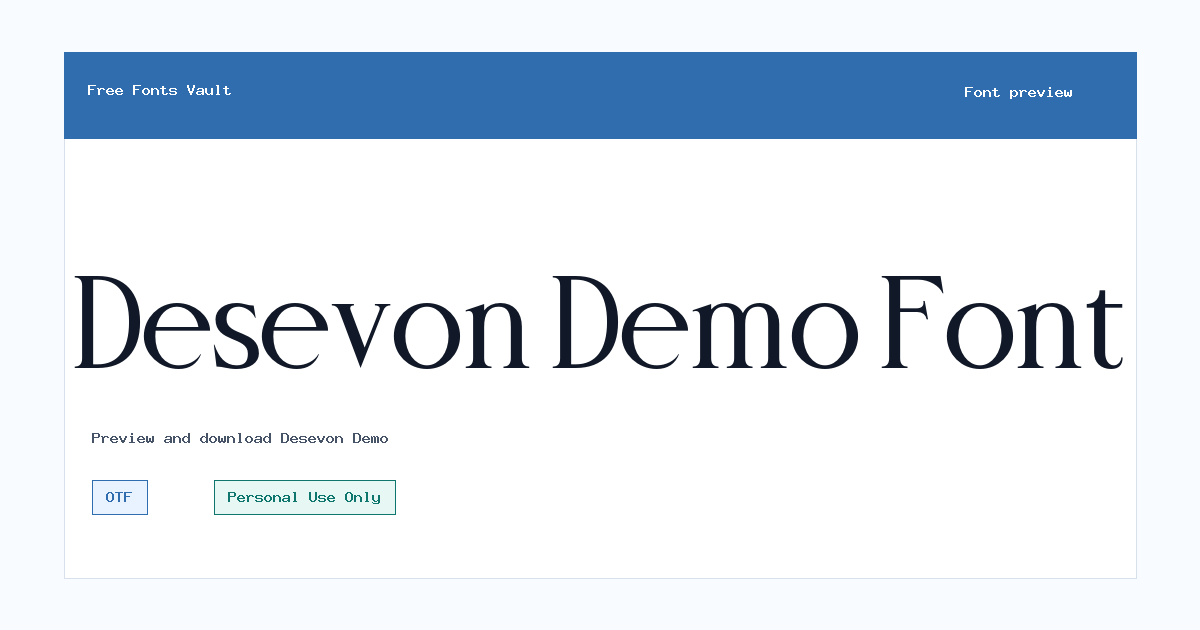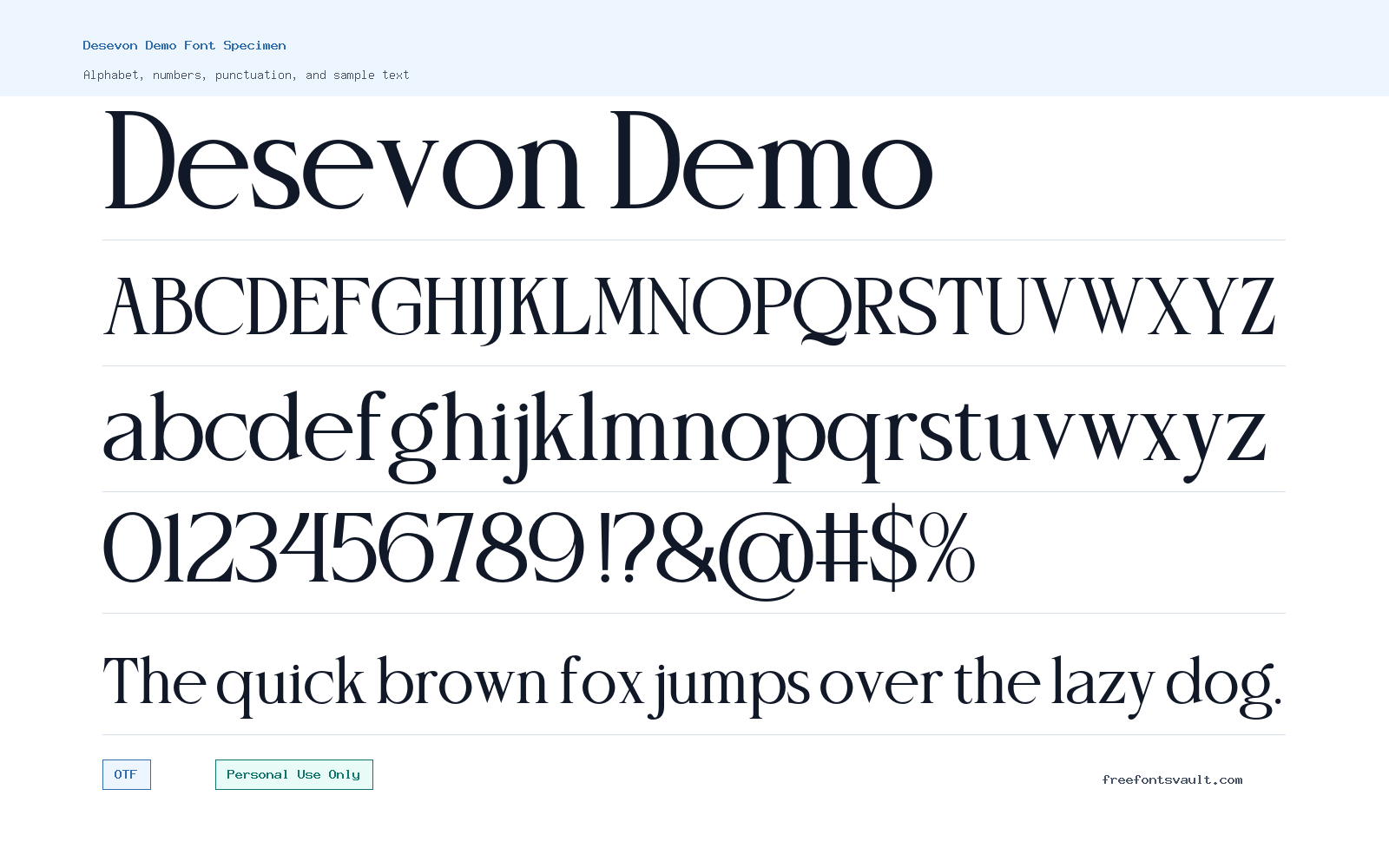
Desevon Demo
Desevon Demo is a serif display font for testing refined title treatments, elegant mockups, and short decorative text. The demo download is marked Personal Use Only, so it is best treated as a trial font for private design exploration rather than client, brand, product, or website use.
Desevon Demo is the trial version of Desevon, a serif typeface from Burntilldead Studio. The full Desevon product is presented by the studio as an elegant serif with high-contrast strokes, graceful curves, ligatures, alternates, and swash details. In practical terms, that points toward a display-first font: it is more useful for names, headlines, invitations, packaging concepts, editorial mastheads, and logo sketches than for long paragraphs. The demo file on this page is a Regular OTF font, so it gives you a direct way to test the core look before deciding whether a paid license or full family is needed.
Use Desevon Demo in the preview tool with real words from your project, not only sample alphabet text. Try a brand name, a wedding couple name, a magazine-style title, or a short product label and check how the capitals, spacing, and thinner strokes behave at different sizes. Serif display fonts with decorative contrast can look polished in large settings but may lose clarity when reduced too far, especially on mobile screens or small labels. For web mockups, test it as a hero heading or image-based concept rather than body copy. For logo work, keep it limited to private concept testing unless you have the correct commercial and logo rights.
- Serif display character with an elegant, high-contrast look
- Best suited to short text, names, titles, and visual mockups
- The studio describes the full version as including alternates, ligatures, multilingual support, and OpenType-oriented features
- Private logo concepts and brand-name studies
- Wedding invitation drafts and elegant name layouts
- Fashion, beauty, or editorial-style headline mockups
- Poster titles where the font can be used at a large size
- Pinterest graphics, quote cards, and social layout drafts for personal testing
- Packaging concepts that need a refined serif heading
Desevon Demo is credited to Sapta Wiliandika and Burntilldead Studio. The studio’s own product page presents Desevon as an elegant serif typeface and lists Desevon among its font products.
For best results, use Desevon Demo in short, spacious text. Increase letter spacing only slightly, because decorative serif shapes can become awkward if the words are spread too far apart. Pair it with a quiet sans serif for supporting copy so the heading remains the focus. Good pairing roles include a neutral sans serif for descriptions, dates, menus, captions, or product details. Avoid using Desevon Demo for dense reading text, small navigation labels, or long blocks of paragraph copy. If you need an italic, webfont formats, full glyph access, alternates, or broader usage rights, check the paid Desevon options from Burntilldead Studio.
What designs does Desevon Demo work best for?
It works best for short display text such as elegant headings, invitation names, editorial titles, beauty or fashion mockups, packaging concepts, and private brand studies.
Is Desevon Demo good for website body text?
It is better as a display font than a body font. Try it for large hero headings or image-based mockups, and pair it with a simpler sans serif for paragraphs and interface text.